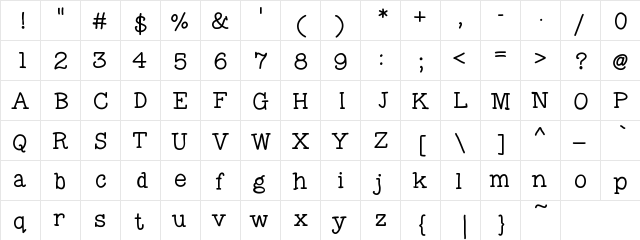
PinkFizz Medium
Design Context for PinkFizz Typeface
PinkFizz takes a measured approach to typography — its balanced proportions and neutral character make it a reliable workhorse for both digital and print work.